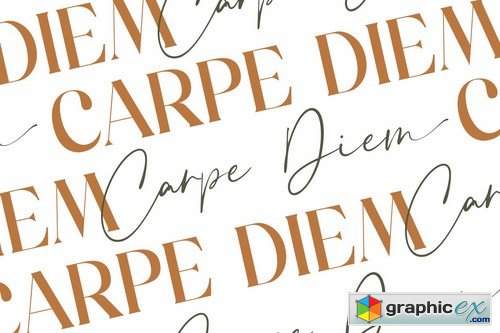
Crimson Foam Chic Stylish
Crimson Foam // Chic Stylish. is a beautiful chic script that is suitable for branding, weddings, social media, product design, stationery, advertising other romantic projects. anything.